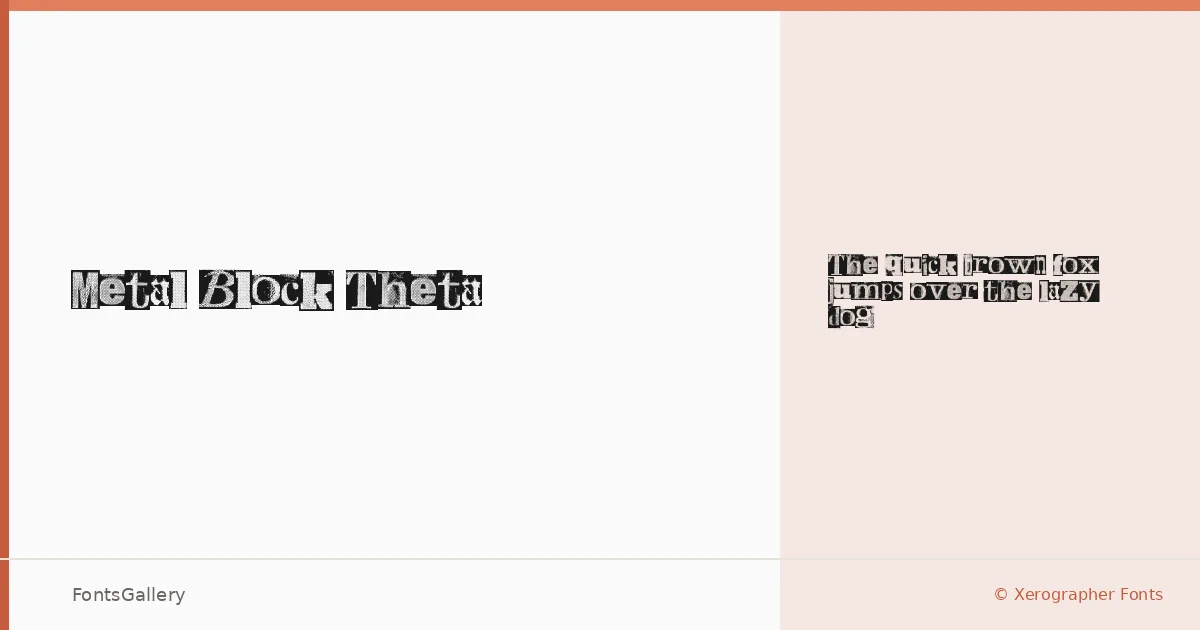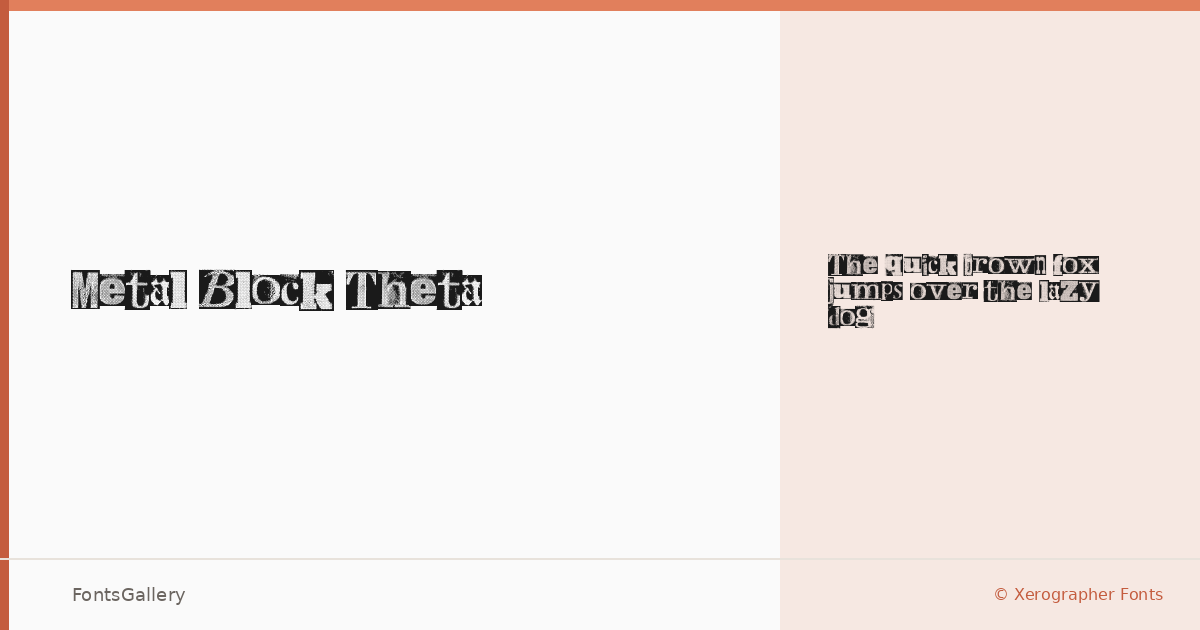
About Metal Block Theta Font
There is genuine grit in these letterforms — the kind of worn, pressed-metal texture that takes years to accumulate on a real sign or a band poster tacked to a wall. Created by Max Infeld of Xerographer Fonts, this single-cut decorative face carries that rusted, industrial weight without tipping into caricature.
The family ships as one Regular style in TTF format, and that one cut is doing a lot of work: bold, grunge-inflected strokes with a rustic, vintage character that suits display use almost exclusively. The letterforms read as blocky and commanding at headline sizes, where the rough edges and uneven pressures become features rather than noise. It is not a text face — it is a headline waiting for the right wall.
The natural territory here is branding, poster work, magazine headers, logo treatments, and t-shirt design — anywhere a raw, authoritative edge is the point. It holds its own against clean, rational companions: Helvetica or Josefin Sans for neutral grounding, Asap for something friendlier, or Canela and ABC Arizona when you want a contrast between this face's hardness and a more refined serif presence.